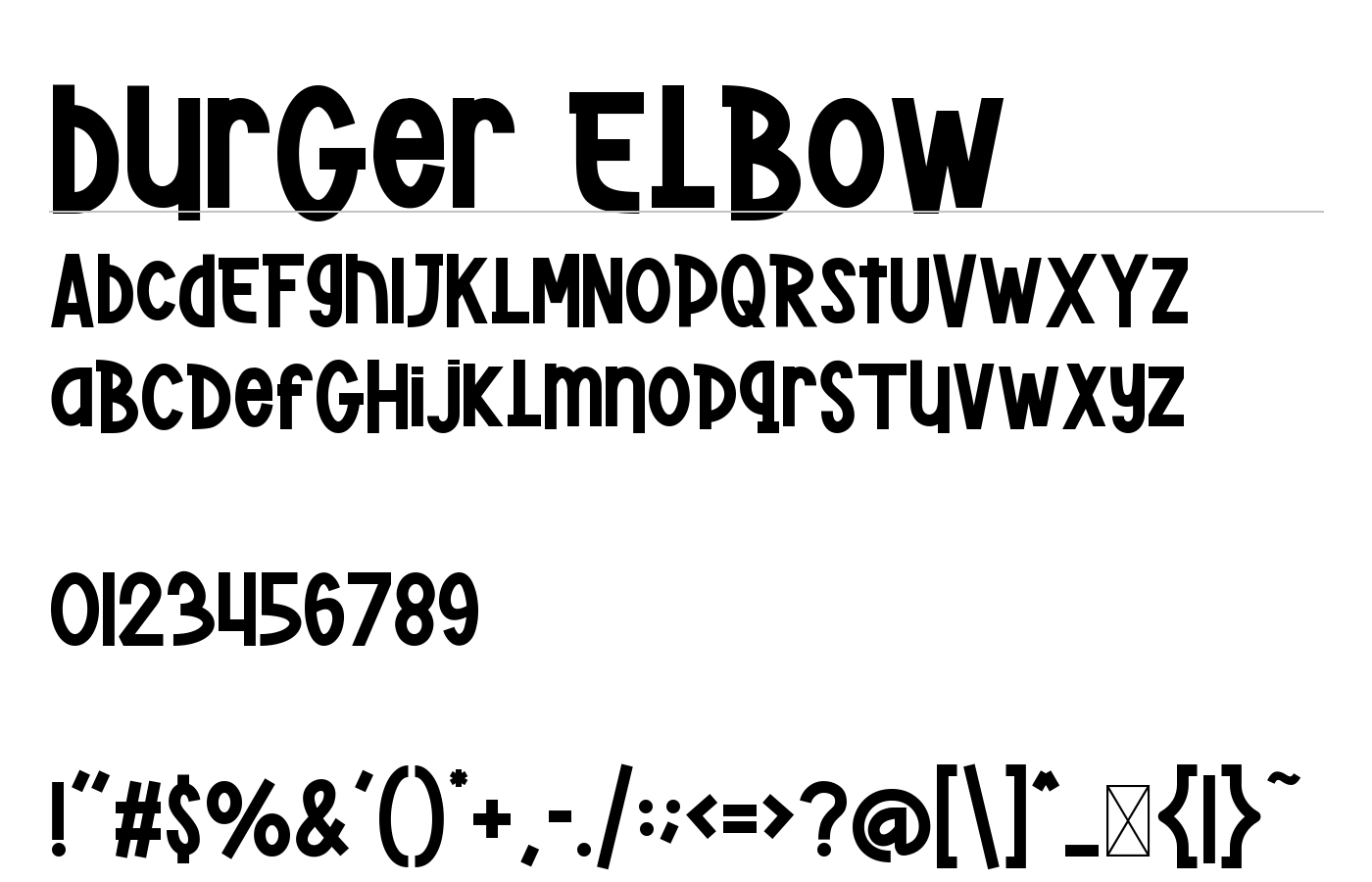
Burger Elbow is a bold and quirky sans serif font with a playful, irregular style that combines strong geometric shapes with whimsical, uneven letterforms. Its unique character and energetic feel make it ideal for creative branding, posters, and headlines where a fun, eye-catching look is needed to capture attention. This font works best in informal and artistic contexts, bringing personality and charm to any design.
Burger Elbow Font
About Burger Elbow Font
| Font family | Burger Elbow Font |